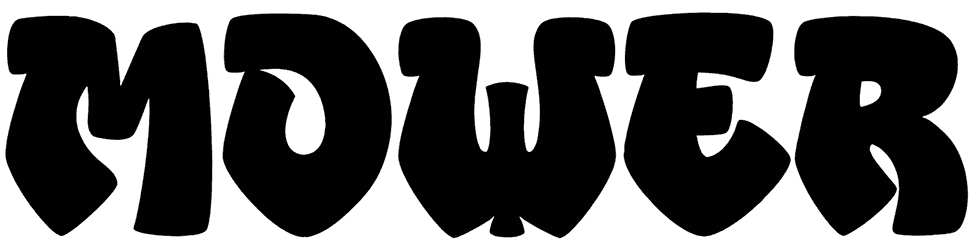
Mower Font
Mower can convey an original or customized effect on designs, making it perfect for packaging, product branding, and promotional events. The playful nature of this graffiti font draws viewers in and works for anything that needs a bold and light font.
So if you’re running a simple project that requires solid sound and want a high percentage of success, turn a blind eye to the lack of lowercase letters and numbers and add Mower to the designs.
Mower Display Font
It’s a thematic Graffiti typeface with an attractive design. We created this typeface with a highly harmonic shape in mind, meticulously correcting the letter-spacing from one another to achieve optical harmony in all of your projects. When you utilize this typeface, your project will be transformed into something elegant and flawless.
This graffiti font is great for product logos, poster titles, headlines, packaging, film titles, logotypes, gorgeous writing, and trendy graffiti designs, among other things.
Of course, if you utilize this font in your numerous creative projects, they will be perfect and outstanding. Use this typeface right away for your one-of-a-kind and remarkable projects.